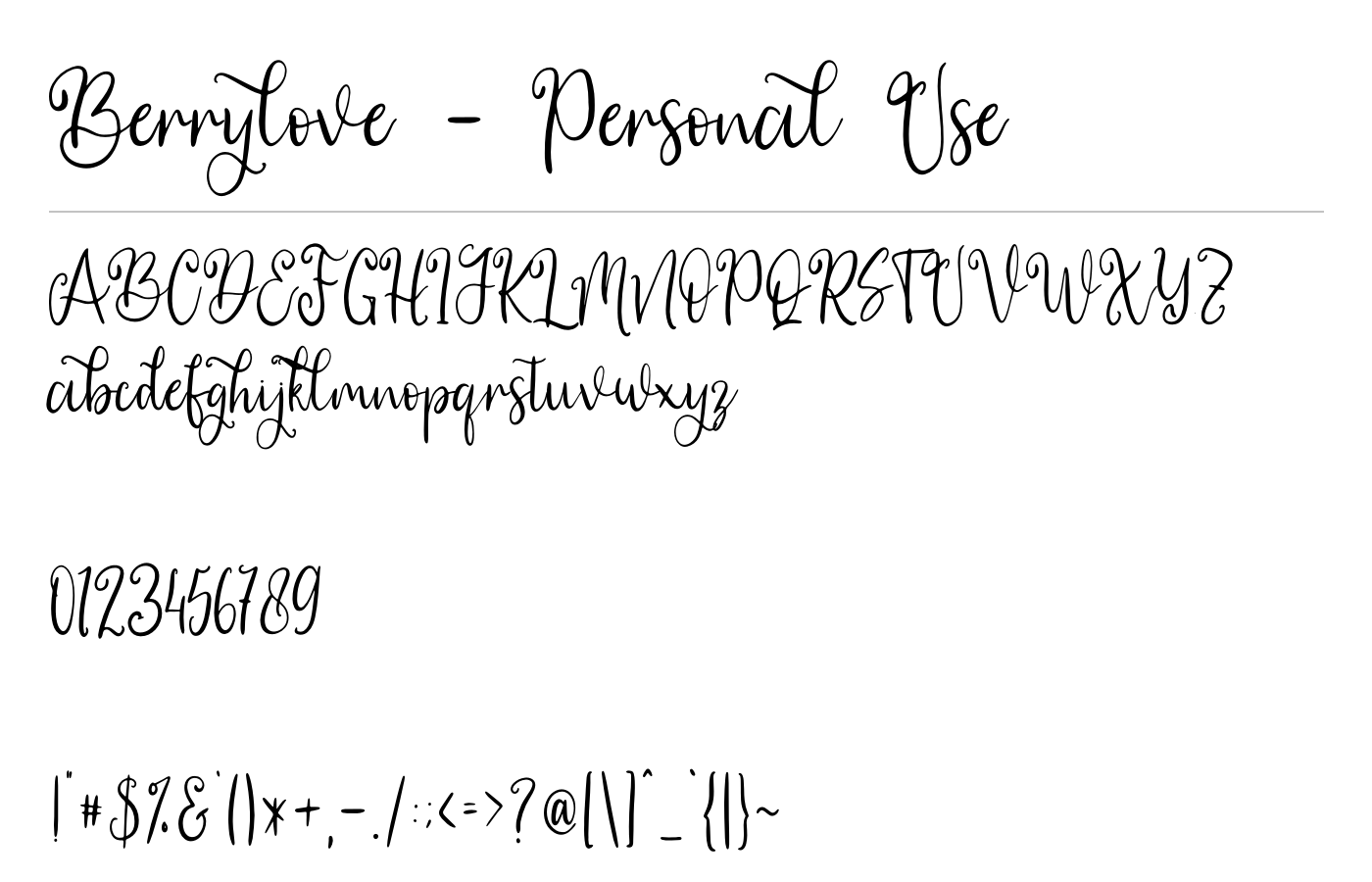
Berrylove is a charming script font with a delicate, handwritten style that exudes warmth and personality. Its slender, flowing letterforms and decorative loops make it ideal for personal projects, invitations, and branding that aims to feel friendly and approachable. This font works best in contexts where a touch of elegance and whimsy is desired, such as greeting cards, logos, and social media graphics.
Berrylove - Personal Use Font
About Berrylove - Personal Use Font
| Font family | Berrylove - Personal Use Font |
| Designer | Ahmad Afandi |